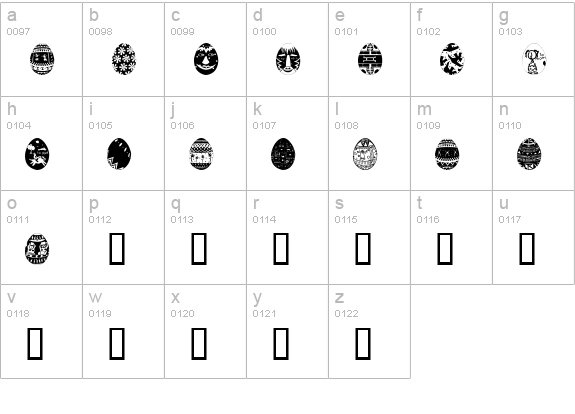
AfricanEggs Font Details
The AfricanEggs font is a unique and artistic typeface inspired by traditional African motifs and patterns. With its intricate details and organic shapes, AfricanEggs brings a touch of cultural richness to any design project. Its bold yet elegant style makes it perfect for headlines, logos, and branding materials. The best part? AfricanEggs is completely free to download at FontsMarket.com, allowing you to access this beautiful font without any cost. Whether you're working on a personal project or a commercial design, AfricanEggs offers versatility and style that will make your work stand out. Download AfricanEggs today and add a touch of African flair to your designs.